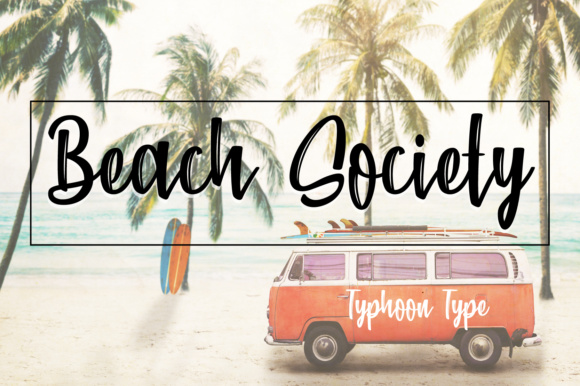
Beach Society Font
About Beach Society Font
Beach Society is a brush stroke font, ideal for use in laid back yet stylish designs. This font has a light-hearted, hipster vibe and works in summery projects.